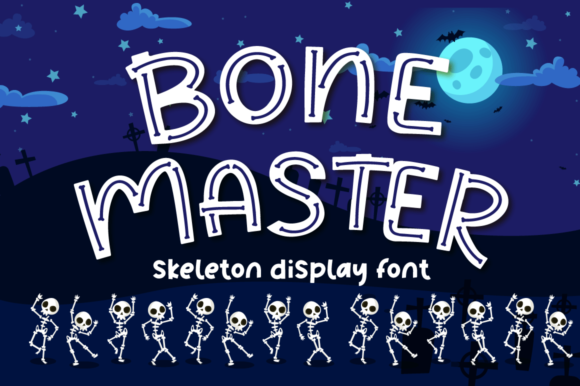
Say hello to Bone Master, the font that will take your designs to the next level. This bold and authentic display font exudes a raw, edgy charm that's perfect for adding an eye-catching touch to your projects. With its simple yet striking style, Bone Master is a versatile font that can adapt to a wide array of creative contexts.
Unleash your creativity and let Bone Master transform your designs into masterpieces. Whether you're working on a boat lettering project, a vintage-inspired poster, or a bold headline, this font will make an unforgettable impact. Its unique character will add an instant layer of intrigue to your work, capturing the attention of anyone who lays eyes on it.
Bone Master is the perfect font for those who value originality and authenticity. Its hand-crafted feel gives it a raw, organic quality that will set your designs apart from the rest. Embrace the rugged beauty of Bone Master and let it bring your creative vision to life.
With Bone Master, you'll discover a new level of expression, making your projects stand out and leaving a lasting impression on your audience. Get ready to unleash the full potential of your creative ideas with this captivating and versatile font.